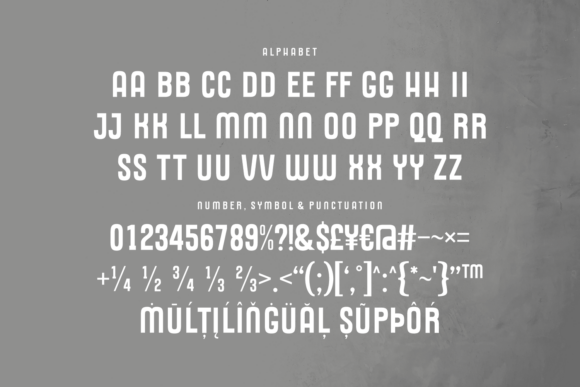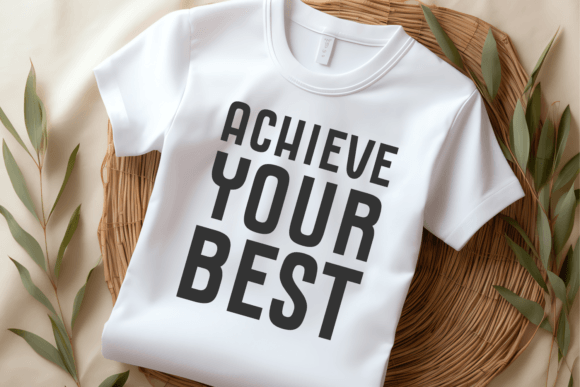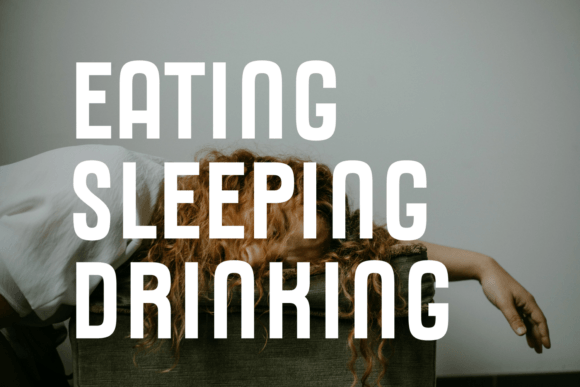
I still remember the frustration of working on a project, hours spent perfecting every detail, only to be stumped by one thing: finding the right font. It was for a client’s poster design, and I needed something bold, modern, and attention-grabbing. After scouring through countless font libraries, I stumbled upon Fight Right – a game-changer for my design. In this article, I’ll share my experience with Fight Right, its features, and how to make the most of this versatile font.
Fight Right: A Font that Packs a Punch
Fight Right is a bold, modern sans-serif font designed for impact and clarity. Its clean lines and sharp edges evoke strength and confidence, making it ideal for headlines, branding, and posters. With its commanding visual presence, Fight Right is perfect for designers, crafters, and creative hobbyists looking to make a statement.
My Honest Review of Fight Right
Here’s what I love about Fight Right:
- ✨ Clean and modern design: Fight Right’s sleek lines and sharp edges make it perfect for contemporary designs.
- ✅ Highly legible: Even at smaller sizes, Fight Right remains clear and easy to read.
- 💪 Versatile: From bold headlines to subtle text, Fight Right adapts seamlessly to different design contexts.
However, I did notice a few quirks:
- 🤔 Limited italic options: While Fight Right has an italic version, it’s not as pronounced as some other fonts.
- ⚠️ Glyph compatibility: Some glyphs may not work seamlessly with older software or platforms.
The Story Behind Fight Right
Fight Right was designed by a team of typographers who aimed to create a font that exudes strength and confidence. Inspired by modern sans-serif fonts, they crafted Fight Right to be both bold and elegant. The font’s clean lines and sharp edges make it perfect for a wide range of design applications.
| What is Fight Right’s primary use case? | Fight Right is designed for impact and clarity, making it ideal for headlines, branding, and posters. |
| Is Fight Right suitable for body text? | While Fight Right is highly legible, it’s best used for headlines and titles. For body text, consider a font with more contrast and nuance. |
| Does Fight Right support OpenType features? | Yes, Fight Right supports OpenType features like Stylistic Alternates, Glyphs, and Swashes. |